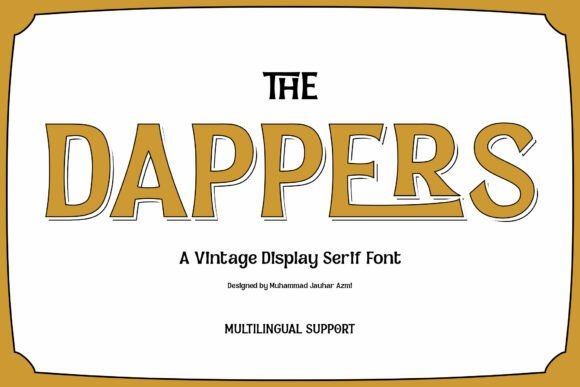
Introduction to Dappers Font
Dappers is a stylish vintage font with a modern twist.
Its bold and elegant serif letters give it a classic, old-time feel, perfect for designs that need a timeless and classy look Great for posters, logos, and headlines.